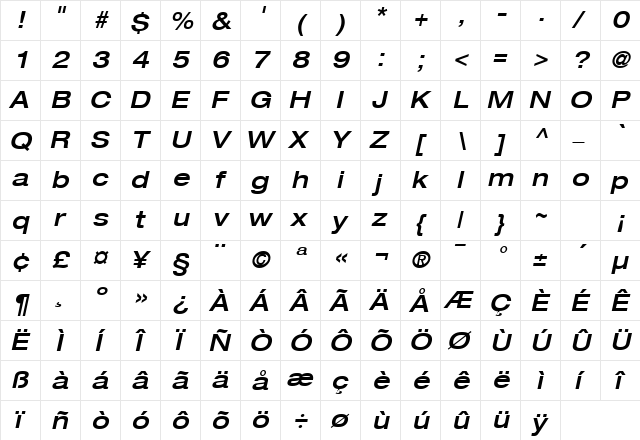
HeaveneticaExtd6 MedOblSH Font Preview
HeaveneticaExtd6 MedOblSH
Design Context for HeaveneticaExtd6 Typeface
HeaveneticaExtd6 offers clean, dependable letterforms without strong stylistic allegiance, making it a practical choice for designers who need flexibility.